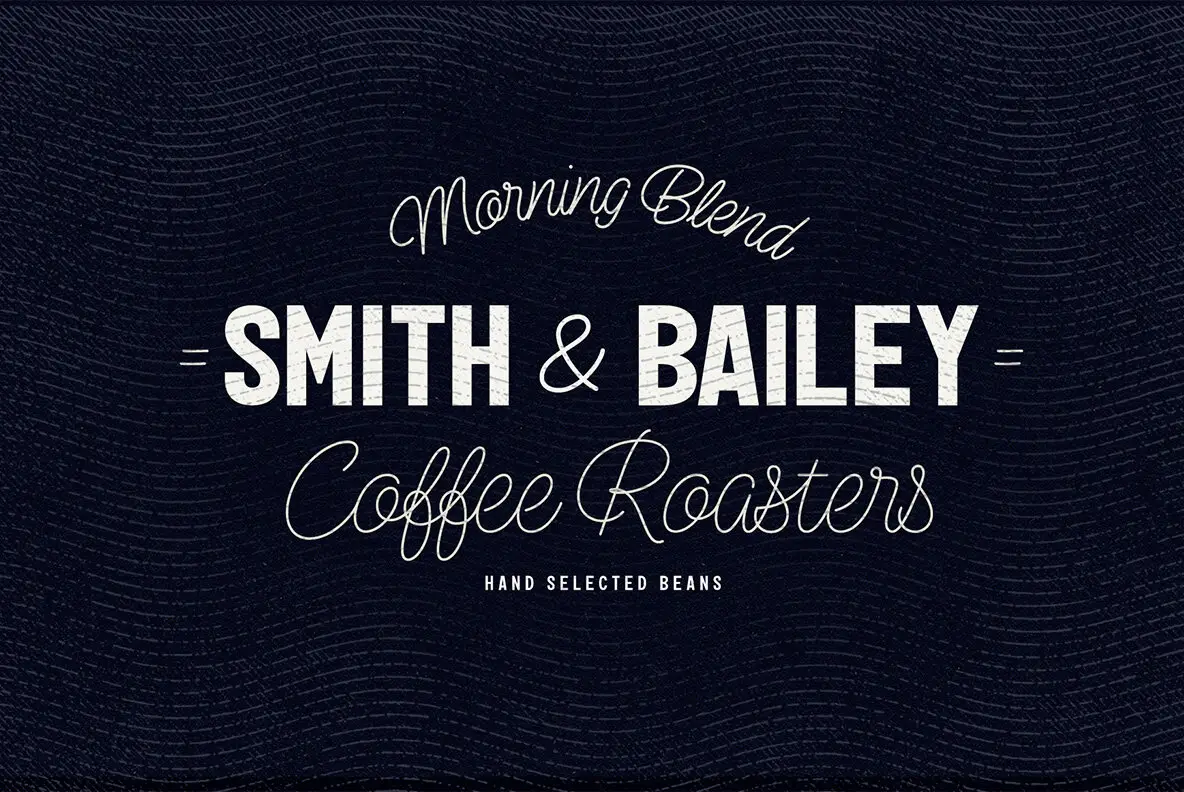
Bold), 387 characters in total. Perfume is a display combo pack of three styles and eight fonts. Perfume brush is also equipped with contextual alternates to keep connections smooth and swash alternates for more imposing character forms.
For the best price purchase the whole pack! Perfume sans is a sturdy all caps sans with three weights. We have 3 free bold, perfume, sans fonts to offer for direct downloading · 1001 fonts is your favorite site for free fonts since 2001
Perfume Sans Bold Font - Perfume sans is a sturdy all caps sans with three weights. The characters are evenly spaced with a modern,. Perfume brush is also equipped with contextual alternates to keep connections smooth and swash alternates for more imposing character forms. Perfume fonts are soft and clean and the. Installable on pc, mac, linux, ios, and android platforms.
Perfume Sans Bold Font - Contains alphabet letters and numbers, view font details, character map, customize font and download font pack Bold), 387 characters in total. Designed by emil bertell, perfume is a brush script, display sans and script font family. Installable on pc, mac, linux, ios, and android platforms. The characters are evenly spaced with a modern,.
Perfume Sans Bold Font - We have 3 free bold, perfume, sans fonts to offer for direct downloading · 1001 fonts is your favorite site for free fonts since 2001 Contains alphabet letters and numbers, view font details, character map, customize font and download font pack Elevate your designs with perfume sans 3 bold font. Perfume brush is also equipped with contextual alternates to keep.
Perfume Sans Bold Font - The characters are evenly spaced with a modern,. Contains alphabet letters and numbers, view font details, character map, customize font and download font pack Perfume brush is a bold brush script with two weights. Bold), 387 characters in total. Perfume sans is a sturdy all caps sans with three weights.
Perfume Sans Bold Font - For the best price purchase the whole pack! Installable on pc, mac, linux, ios, and android platforms. Perfume is a display combo pack of three styles and eight fonts. Perfume brush is also equipped with contextual alternates to keep connections smooth and swash alternates for more imposing character forms. The characters are evenly spaced with a modern,.
Perfume Sans Bold Font - Perfume brush is a bold brush script with two weights. Bold), 387 characters in total. Installable on pc, mac, linux, ios, and android platforms. Elevate your designs with perfume sans 3 bold font. We have 3 free bold, perfume, sans fonts to offer for direct downloading · 1001 fonts is your favorite site for free fonts since 2001
Perfume Sans Bold Font - Perfume sans is a sturdy all caps sans with three weights. Perfume is a display combo pack of three styles and eight fonts. Perfume brush is also equipped with contextual alternates to keep connections smooth and swash alternates for more imposing character forms. This typeface has eight styles and was published by fenotype. Perfume brush is a bold brush script.
Perfume Sans Bold Font - Perfume fonts are soft and clean and the. Elevate your designs with perfume sans 3 bold font. Designed by emil bertell, perfume is a brush script, display sans and script font family. This typeface has eight styles and was published by fenotype. For the best price purchase the whole pack!
Perfume Sans Bold Font - This typeface has eight styles and was published by fenotype. Perfume sans is a sturdy all caps sans with three weights. Perfume brush is a bold brush script with two weights. Installable on pc, mac, linux, ios, and android platforms. Perfume fonts are soft and clean and the.
Perfume Sans Bold Font - Perfume brush is also equipped with contextual alternates to keep connections smooth and swash alternates for more imposing character forms. Contains alphabet letters and numbers, view font details, character map, customize font and download font pack Perfume is a display combo pack of three styles and eight fonts. Perfume brush is a bold brush script with two weights. We have.
Perfume Sans Bold Font - The characters are evenly spaced with a modern,. Designed by emil bertell, perfume is a brush script, display sans and script font family. Bold), 387 characters in total. Elevate your designs with perfume sans 3 bold font. We have 3 free bold, perfume, sans fonts to offer for direct downloading · 1001 fonts is your favorite site for free fonts.
Perfume Sans Bold Font - Elevate your designs with perfume sans 3 bold font. For the best price purchase the whole pack! We have 3 free bold, perfume, sans fonts to offer for direct downloading · 1001 fonts is your favorite site for free fonts since 2001 Perfume is a display combo pack of three styles and eight fonts. Perfume fonts are soft and clean.